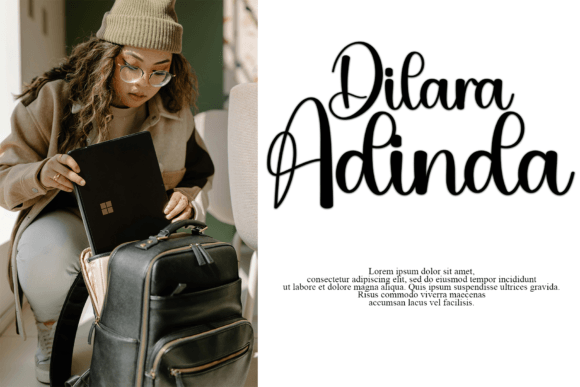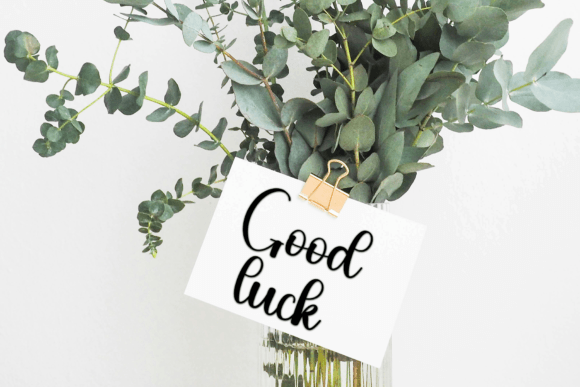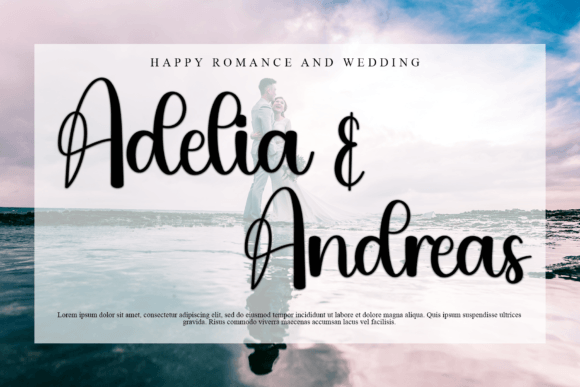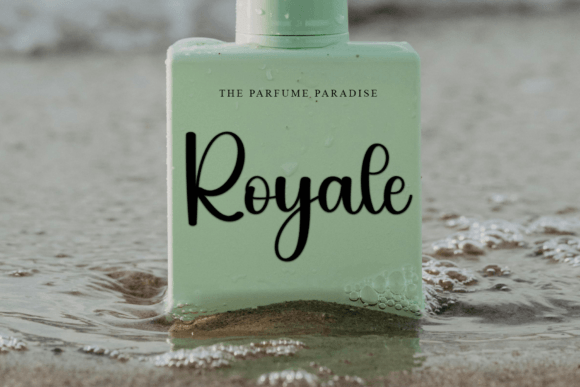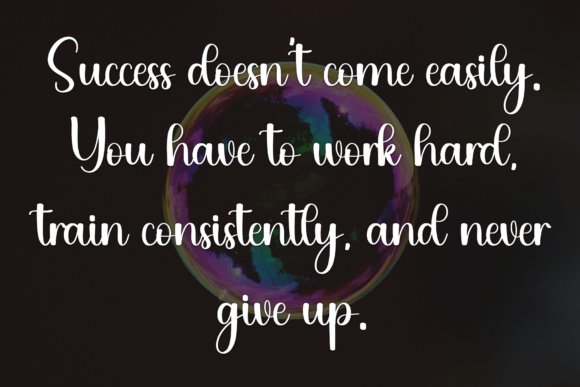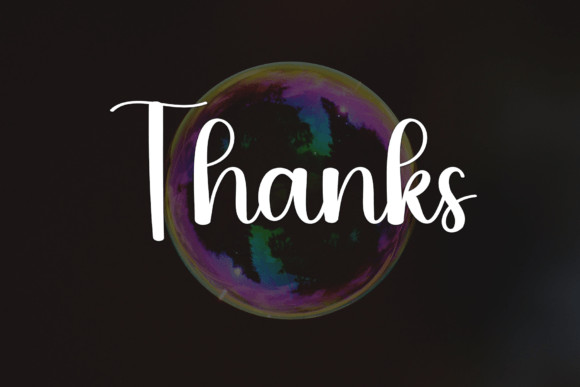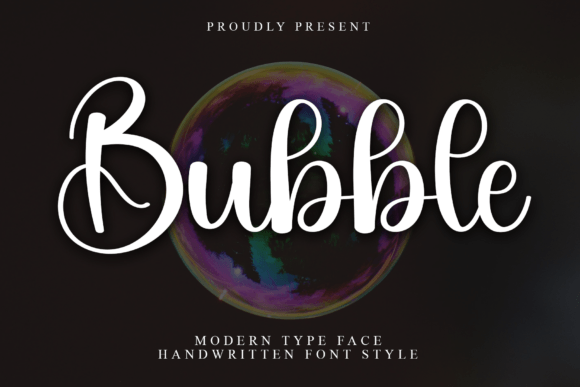
The Joy of Bubble Font: A Fun and Quirky Handwriting Font
I’ll never forget the time I was working on a children’s party invitation design, and I just couldn’t find the right font to match the playful theme. The client wanted something cheerful, fun, and engaging, but everything I tried seemed either too boring or too over-the-top. That’s when I stumbled upon the Bubble font, and it was love at first sight! ✨
A Personal Review of Bubble Font
As a designer, I’m always on the lookout for fonts that can bring a little excitement to my projects. Bubble font did not disappoint! Here’s what I love about it:
• 💖 It’s incredibly fun and quirky, making it perfect for children’s themed designs or any project that needs a playful touch.
• 🎨 The font is highly versatile and works beautifully with bright colors, which is a must for kid-friendly designs.
• 🔍 Being PUA encoded, it offers easy access to a range of amazing glyphs and ligatures, allowing for even more customization.
• ✅ It’s surprisingly legible, even at smaller sizes, which is a bonus for designs that require a bit more text.
• 🤔 The font might not be the best choice for more formal or professional projects, as its playful nature might not fit the tone.
• ⚠️ Some of the glyphs and ligatures require a bit of experimentation to get just right, but this is part of the fun!
The Story Behind Bubble Font
While the origins of Bubble font might not be well-documented, it’s easy to imagine a designer inspired by the playful world of children’s cartoons and comics. Perhaps they wanted to create a font that captures the whimsy and excitement of childhood, making it perfect for projects aimed at kids or anyone young at heart.
Is Bubble font suitable for professional projects? While it’s incredibly fun and engaging, Bubble font might not be the best fit for very formal or professional projects due to its playful nature.